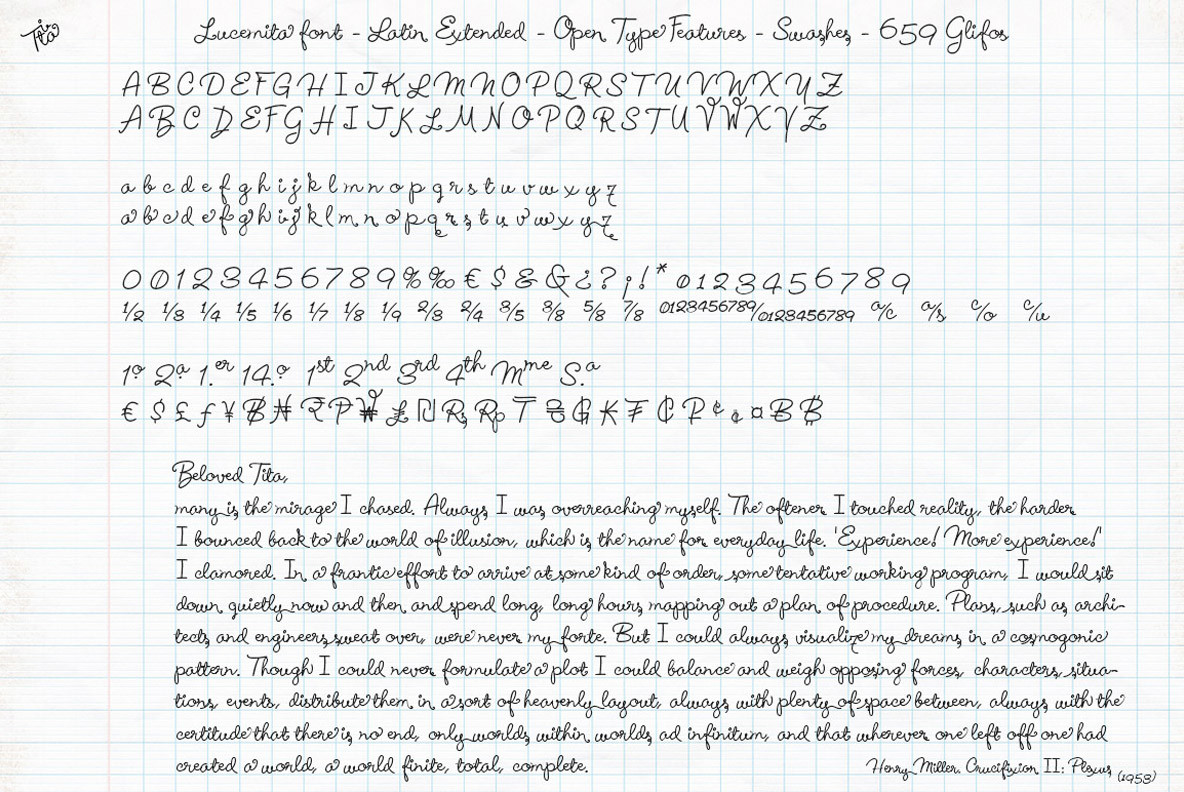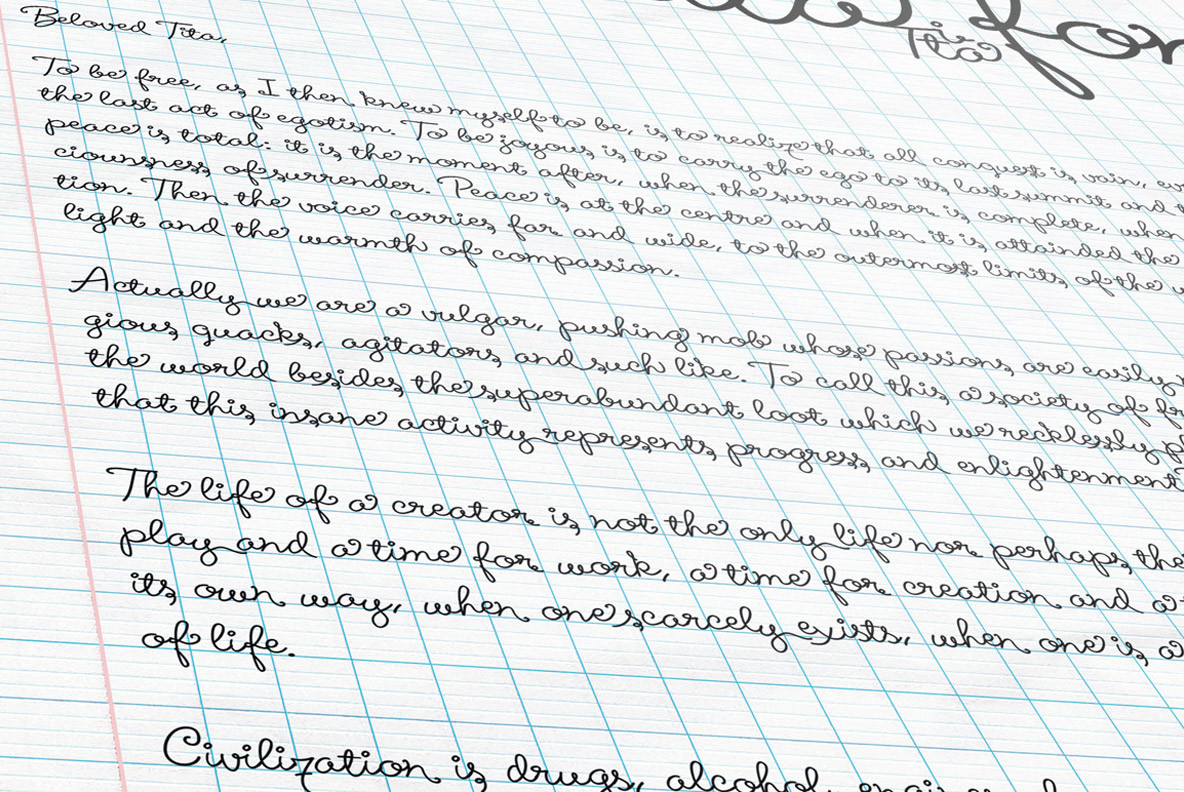
Lucemita is a handwritten calligraphic typeface style and casual appearance, drawn freehand with a fine pen and then digitized for use in computers. This handwritten font contains several additional character sets for aesthetic purposes such as alternative capital letters to start words or lowercase terminals ornaments for the end of words (Swashes) also alternate letters that change depending on the context or the letter you have next these characters give the font the ability to compose texts with many variants of different letters, thereby achieving a close to real handwriting look.
• OpenType features: Alternate characters • Numbers old style • Ligatures • Fractions • Currencies • Denominators • Numerators • Swashes • Slash zero • Inferiors • Superiors • Fractions • Ordinals Terminal forms • Initial forms • Capital alternates • Contextual alternates • Discretionary Ligatures